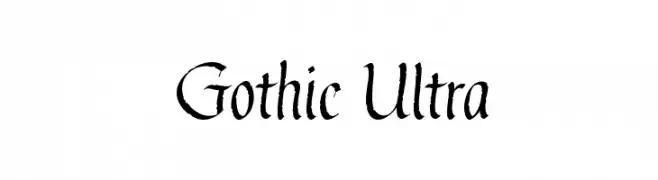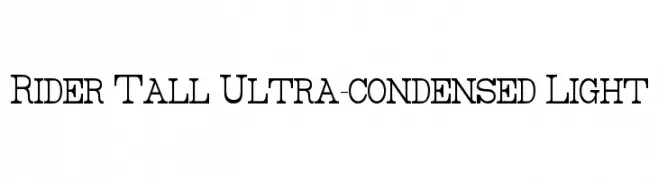
A bold, Gothic-inspired font with sharp, angular strokes and high contrast.
A bold slab serif font with strong, block-like serifs and high contrast.
Ultra-condensed, bold italic font with tall, narrow letterforms.
An ultra-condensed, tall serif font with light strokes and a modern classic appeal.
A bold, ultra-expanded serif font with wide letterforms and high contrast.
A bold, wide, expanded font with extra black weight and high contrast.
A tall, ultra-condensed, extra black italic font with high contrast and sharp serifs.
A bold, ultra-condensed font with tall, narrow letterforms and strong visual impact.
A bold, ultra-expanded italic font with a modern and dynamic style.
A bold, ultra-expanded font with thick strokes and a commanding presence.